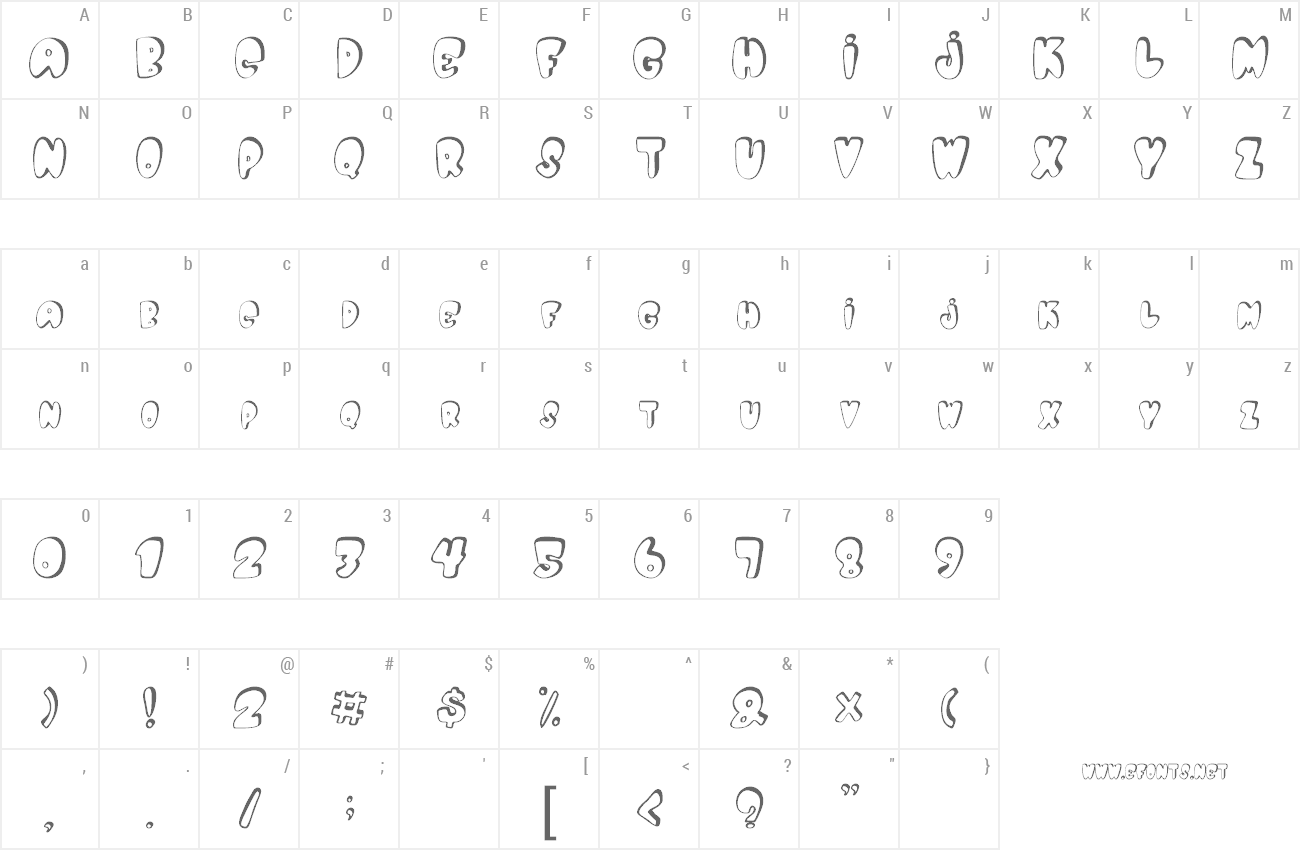
Preview and download Pack-Man Font. Created by Alfatih Std. in Fancy Cartoon styles with Free for personal use license.
| Font name: | Pack-Man |
| Author: | Alfatih Std. |
| Note by Alfatih Std. | |